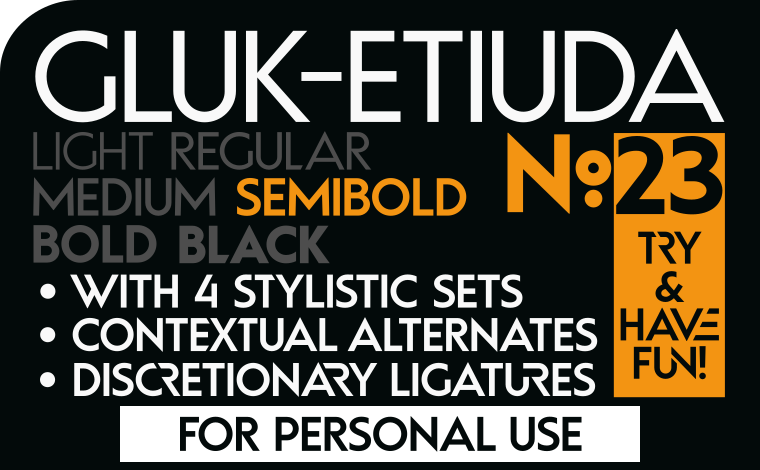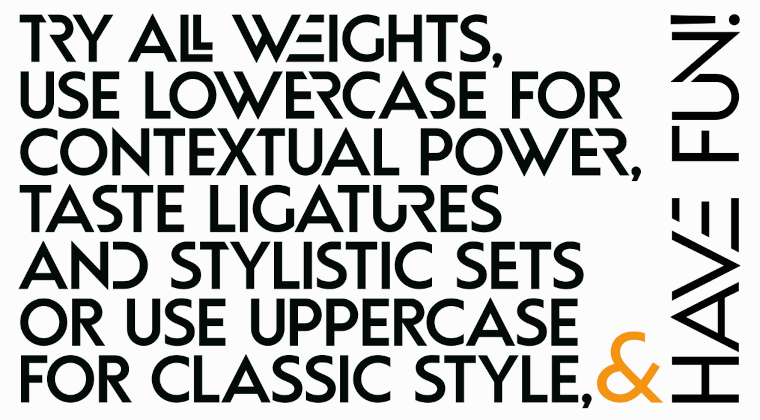
Font GlukEtiudaNo23 Semibold made by gluk Font GlukEtiudaNo23 Semibold -try & have fun
Font Gluk Etiuda No23 Semi­bold is a geo­met­ric sans serif from Gluk Etiuda No23 fam­ily (6 weights — from Light to Black). With over 600 alter­nate glyphs, this font has exten­sive Latin lan­guage sup­port for West­ern, Cen­tral, and East­ern Euro­pean and gives text a unique, ele­gant and mod­ern feel. Use low­er­case for con­tex­tual power, taste Dec­o­ra­tive Lig­a­tures and 4 Styl­is­tic Sets or use UPPER­CASE for clas­sic style & Have Fun!